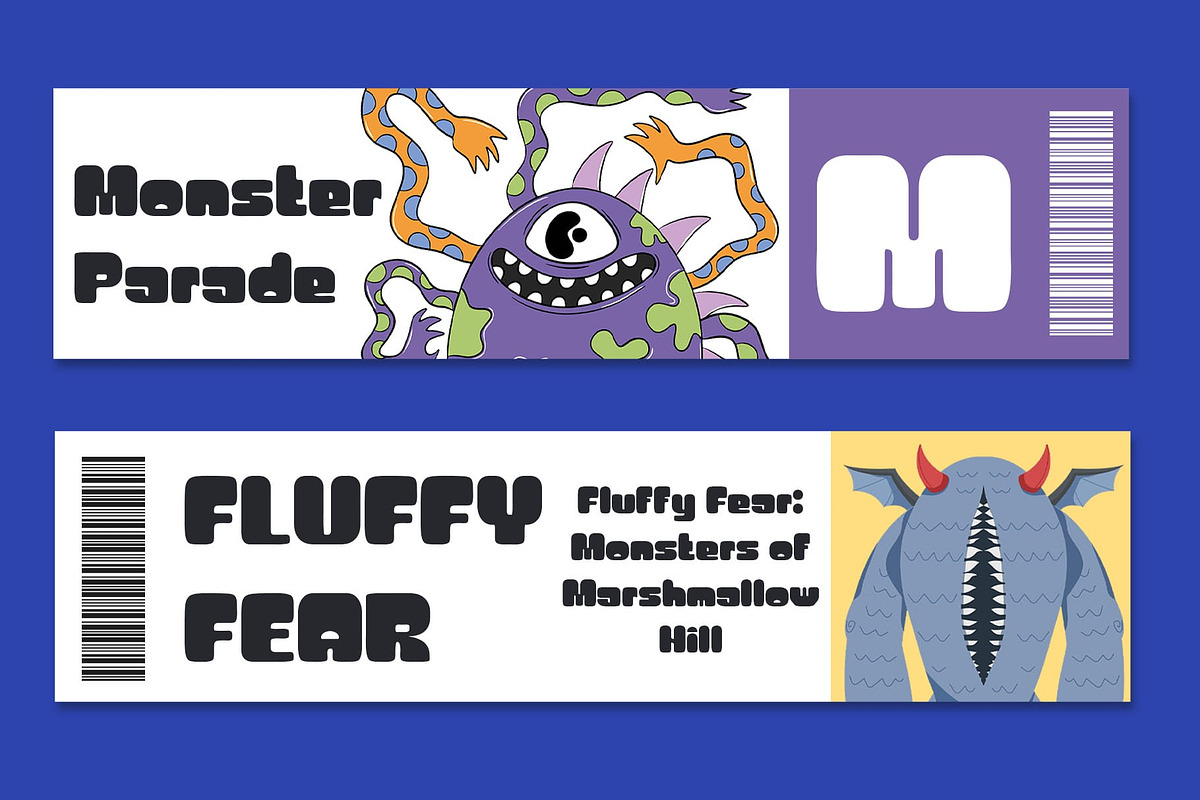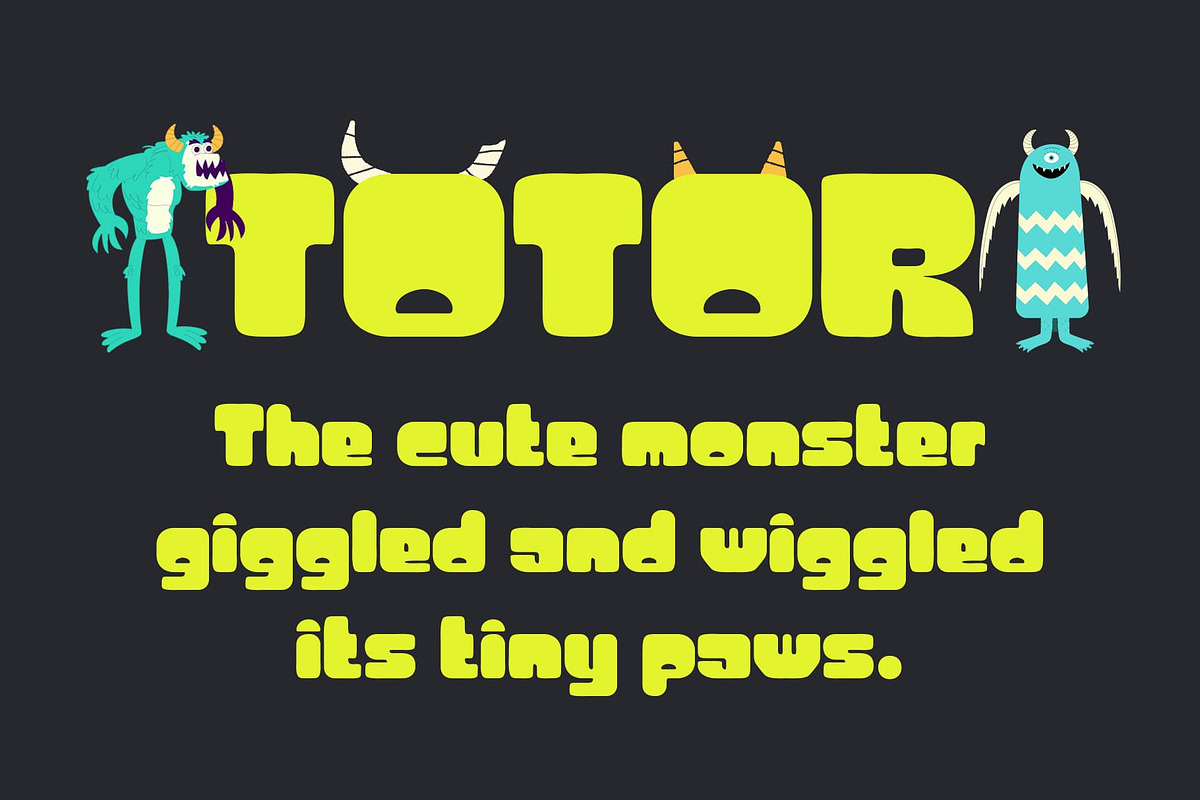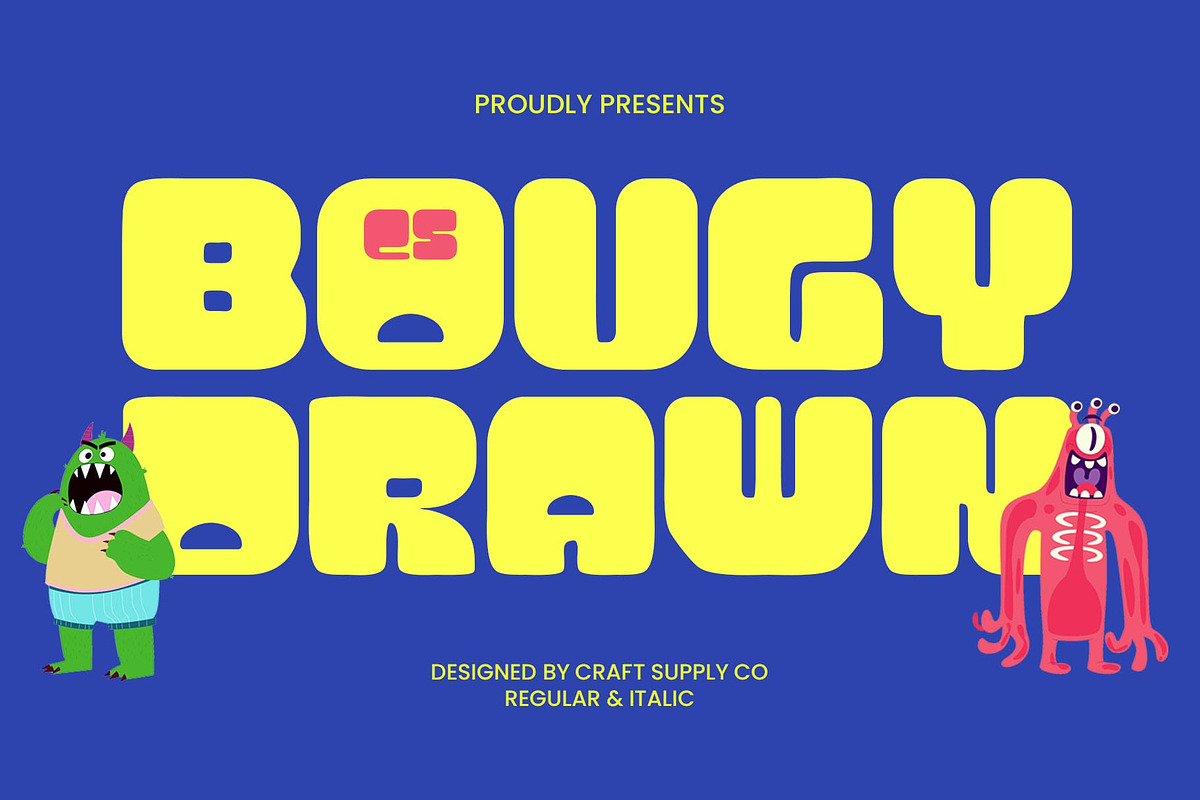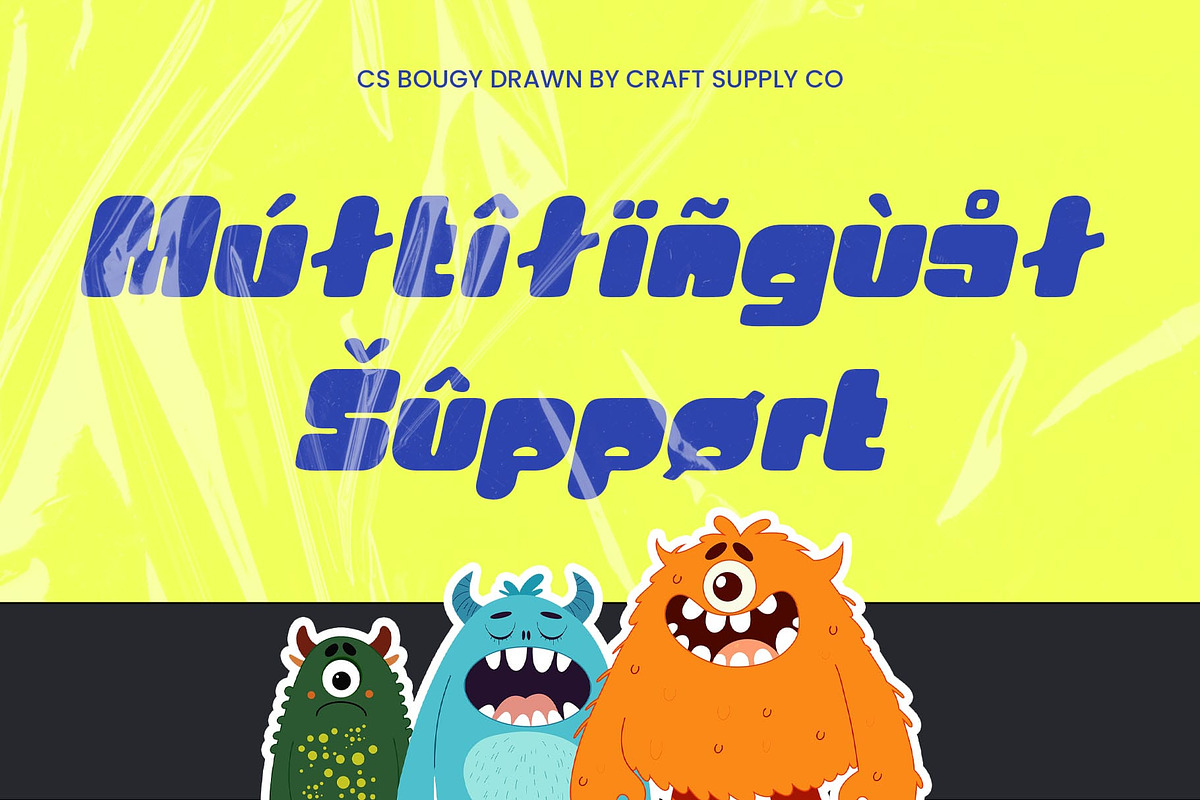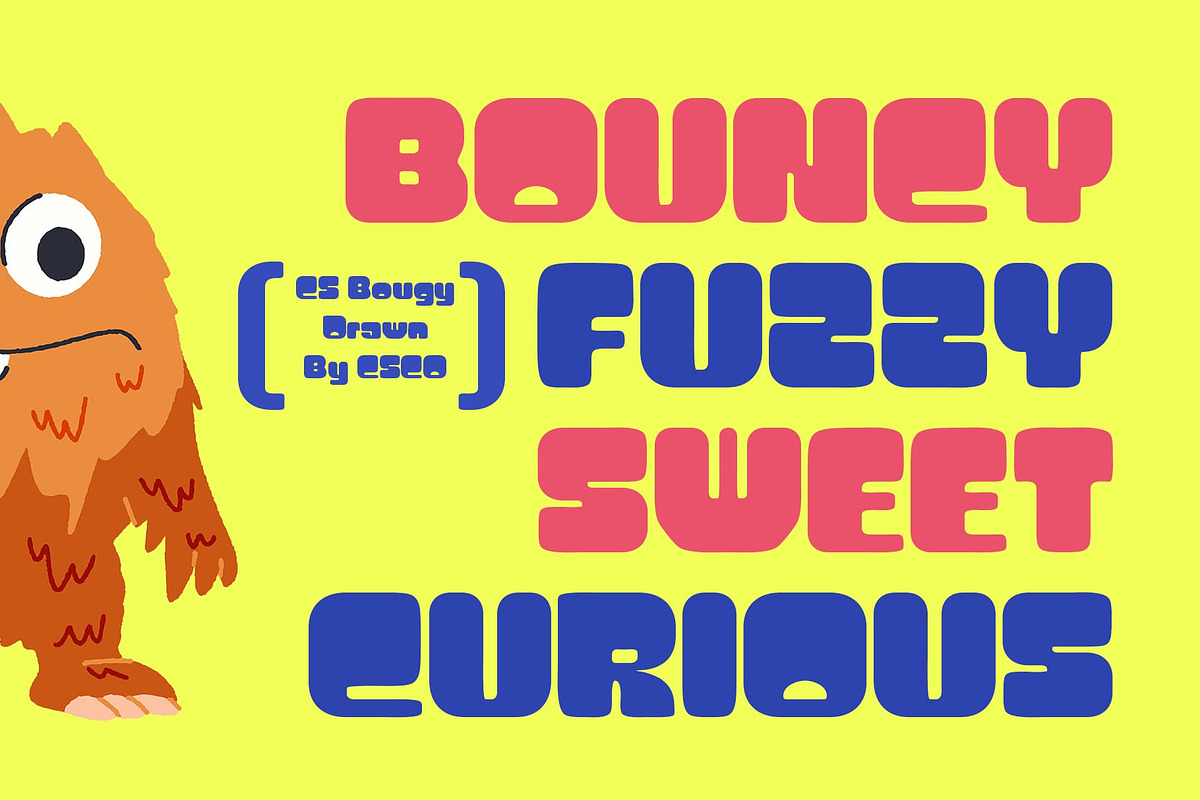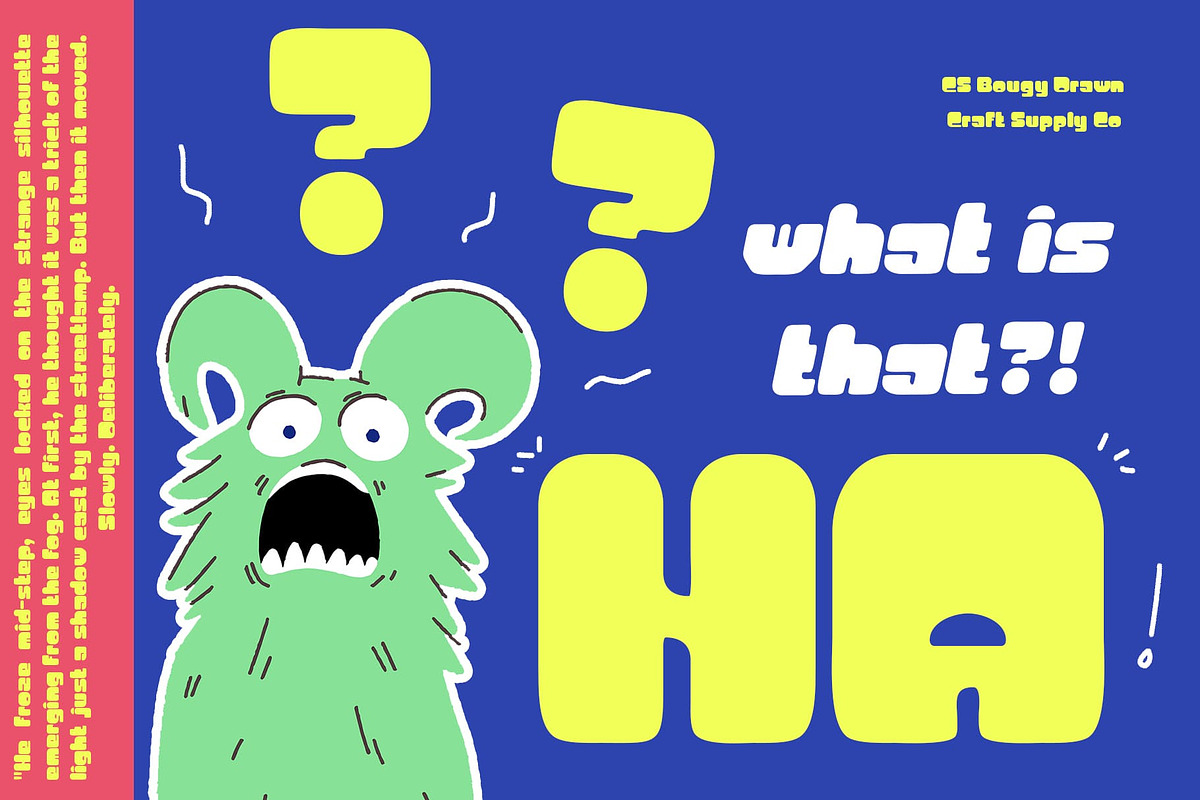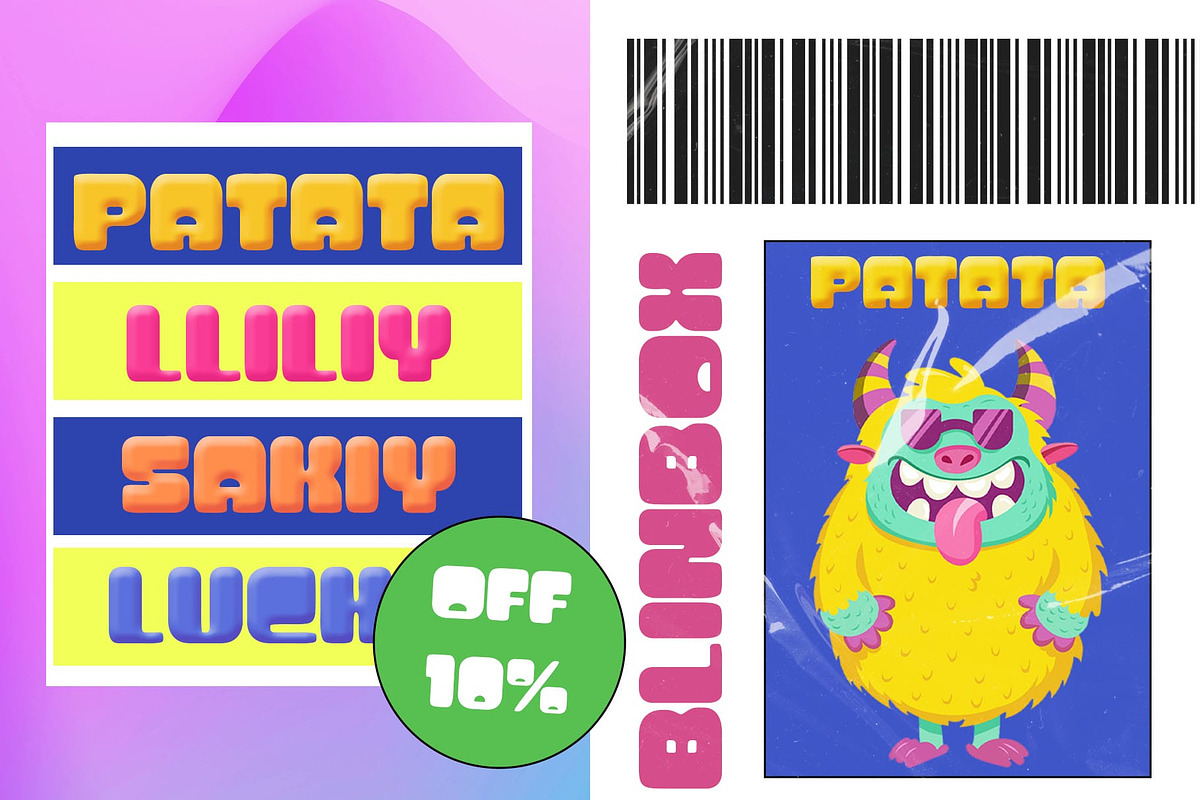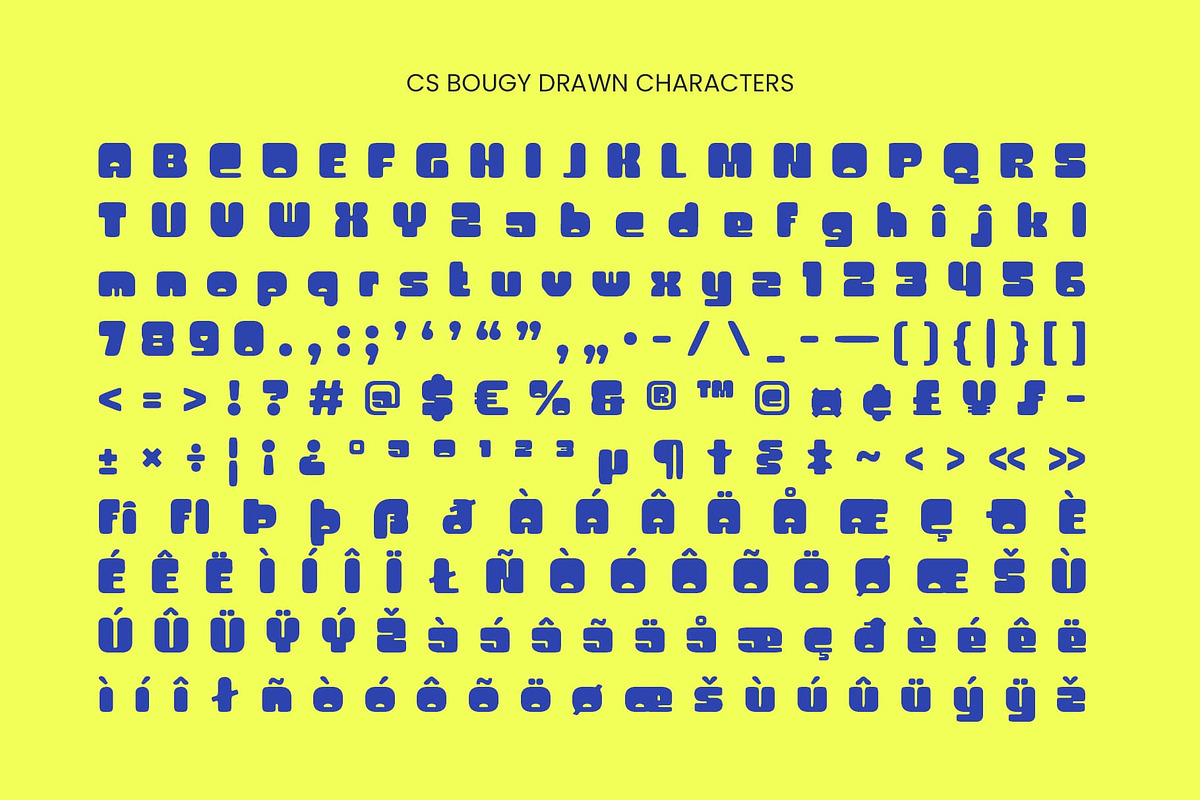
CS Bougy Drawn
CS Bougy Drawn: Where Bold Meets Funky Expression
A Bold Contemporary Sans Serif with Unique Personality This is a modern sans serif display font that blends bold structure with artistic flair. Featuring confident, thick strokes and a contemporary design language, it commands attention while maintaining a fresh and stylish appeal. It is designed to make a visual statement in every use, from bold headlines to expressive brand identities.
Playful Drawn Effect for Artistic Texture Adding to its distinct character is a drawn effect that gives the font a hand-crafted, sketch-like feel. The lines feel imperfect in a purposeful way, echoing the spontaneity and energy of freehand illustration. This handcrafted texture adds visual depth and uniqueness, bringing warmth and personality to what would otherwise be a clean geometric structure.
Y2K Aesthetic for a Spirited, Retro-Futuristic Vibe Infused with a funky Y2K spirit, this bold font celebrates the expressive, colorful, and unconventional design trends of the early 2000s. It captures the essence of that era’s digital rebellion—featuring quirky shapes and vibrant energy. This nostalgic yet forward-looking vibe makes it perfect for creatives aiming to evoke youthful freedom, digital optimism, and futuristic edge.